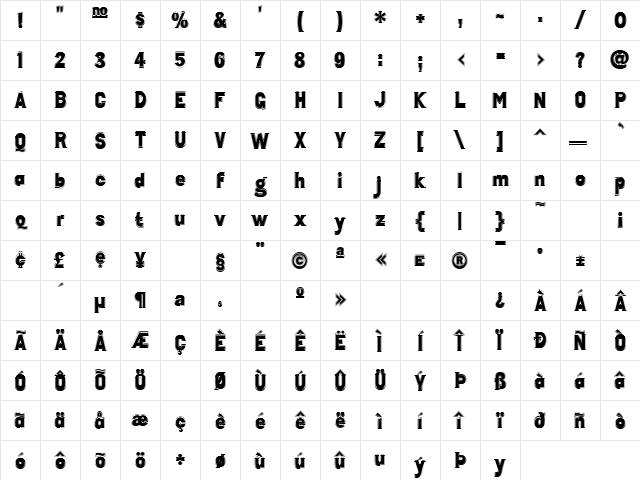
Tenko Regular
Tenko Family
Design Context for Tenko
Tenko is a composed and adaptable typeface that performs quietly and consistently across a wide range of design contexts.
Pro Tip: Use Tenko in both headline and body roles to test its range before committing to a single application.